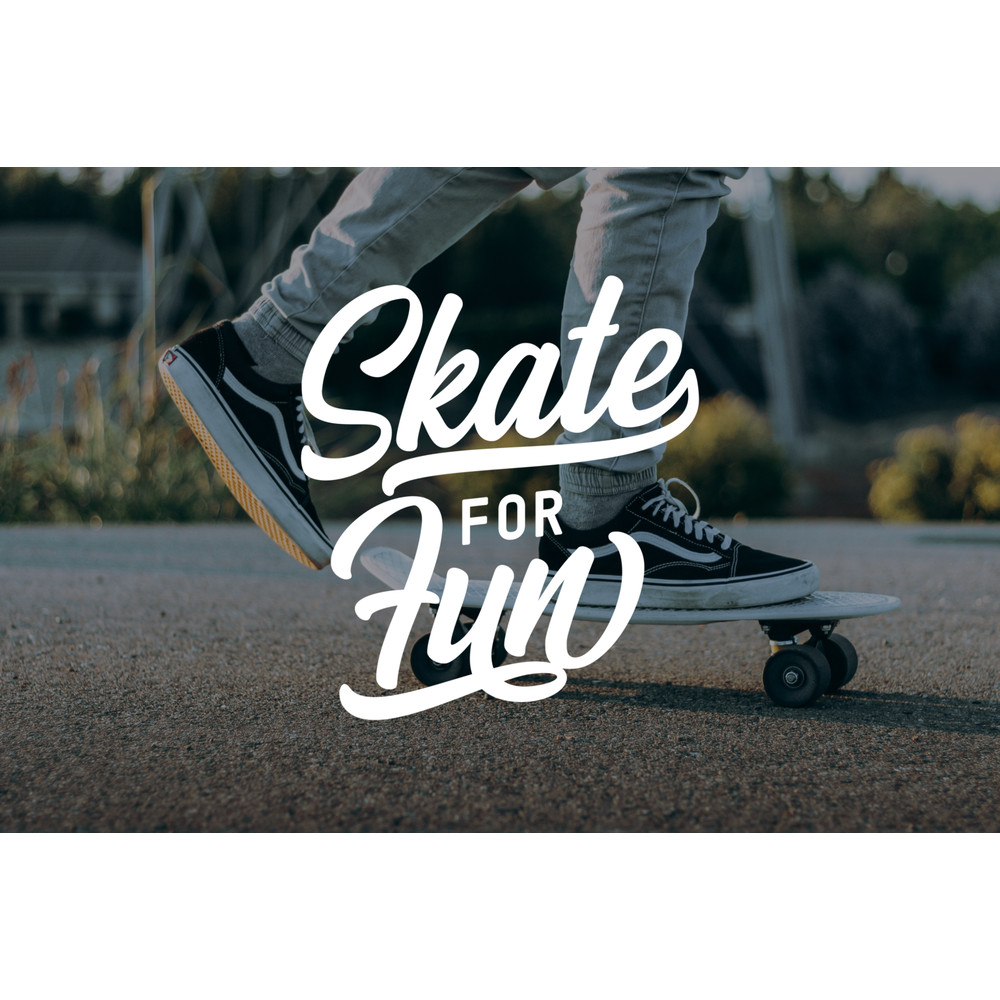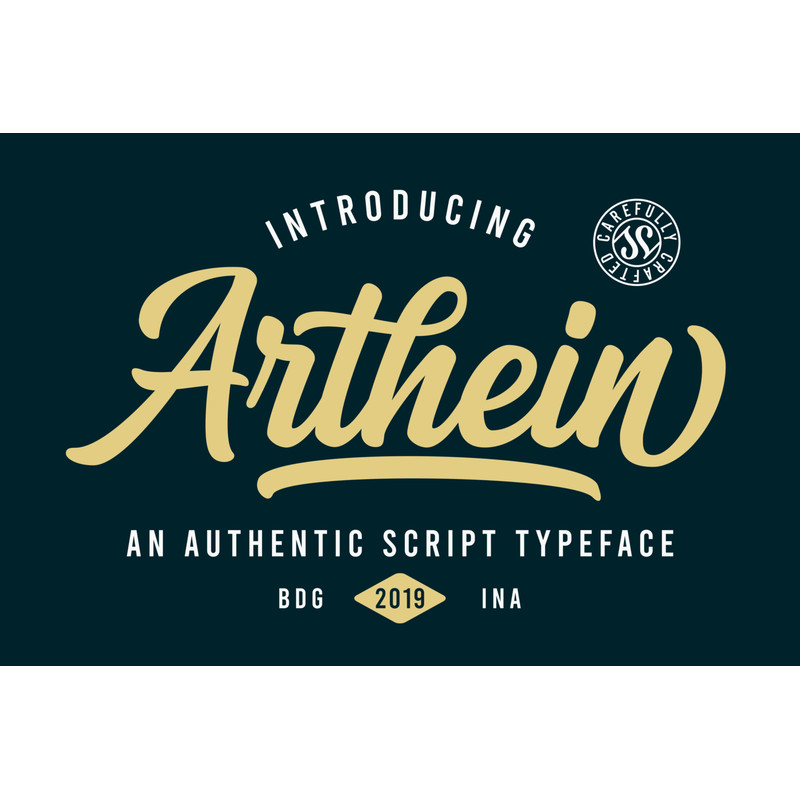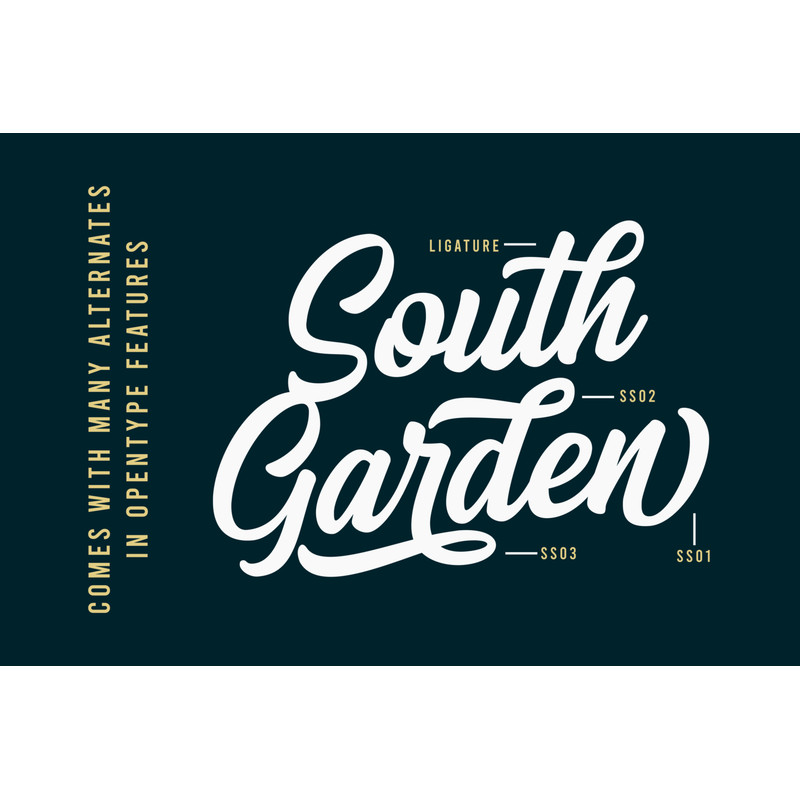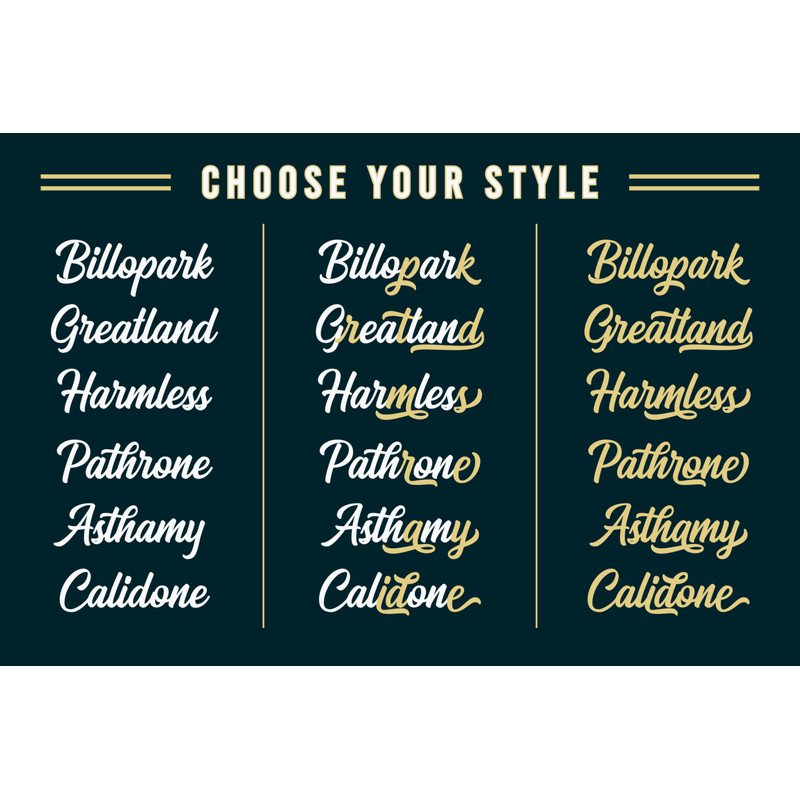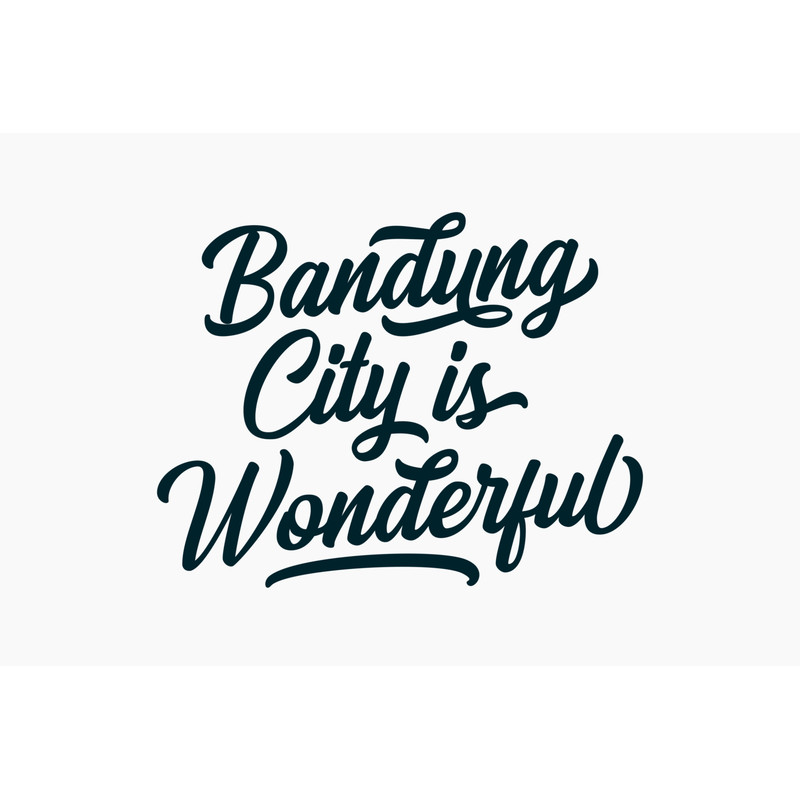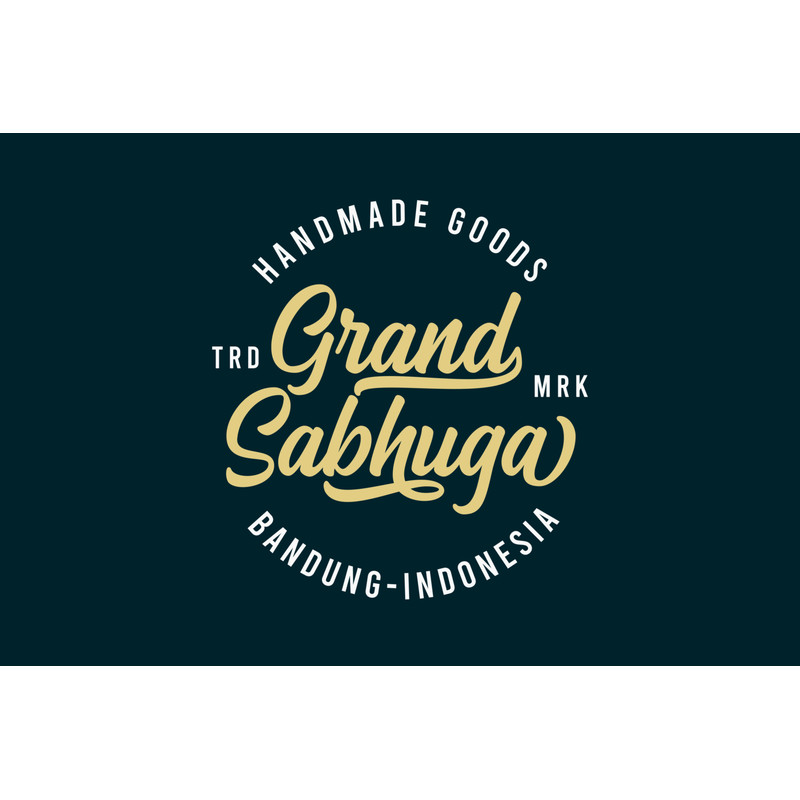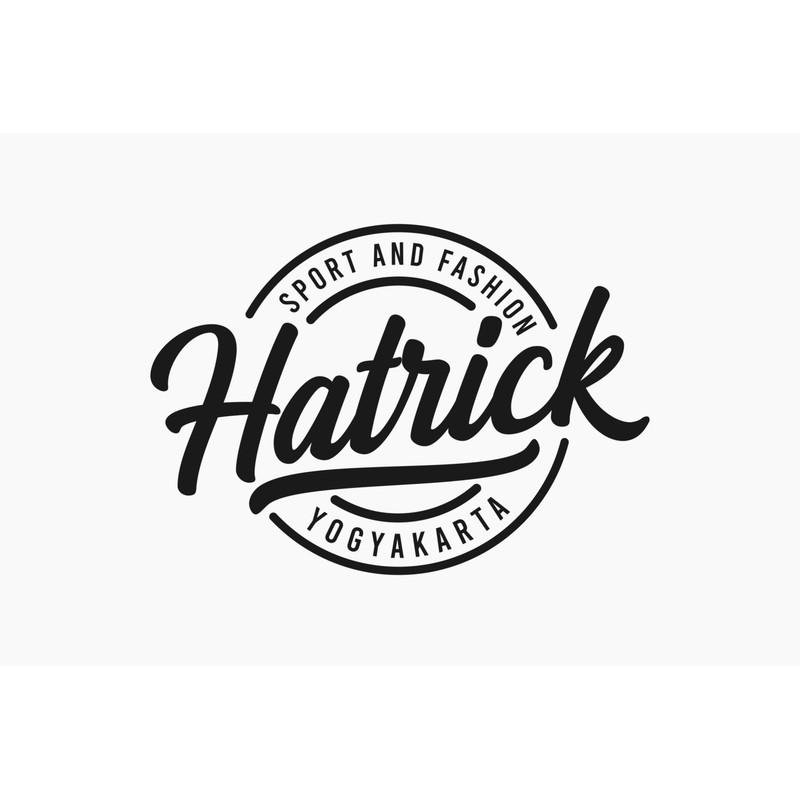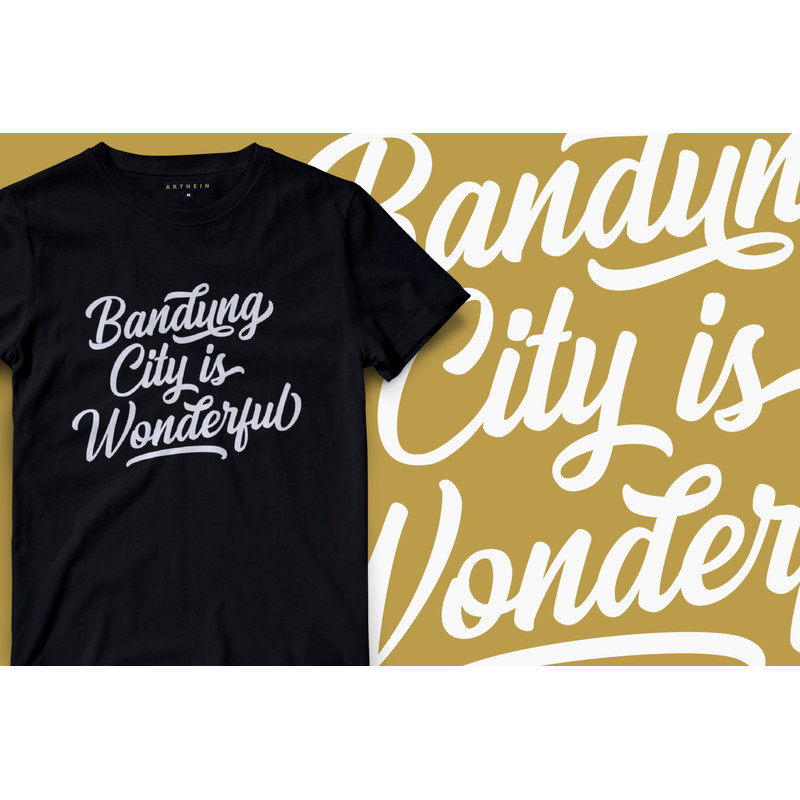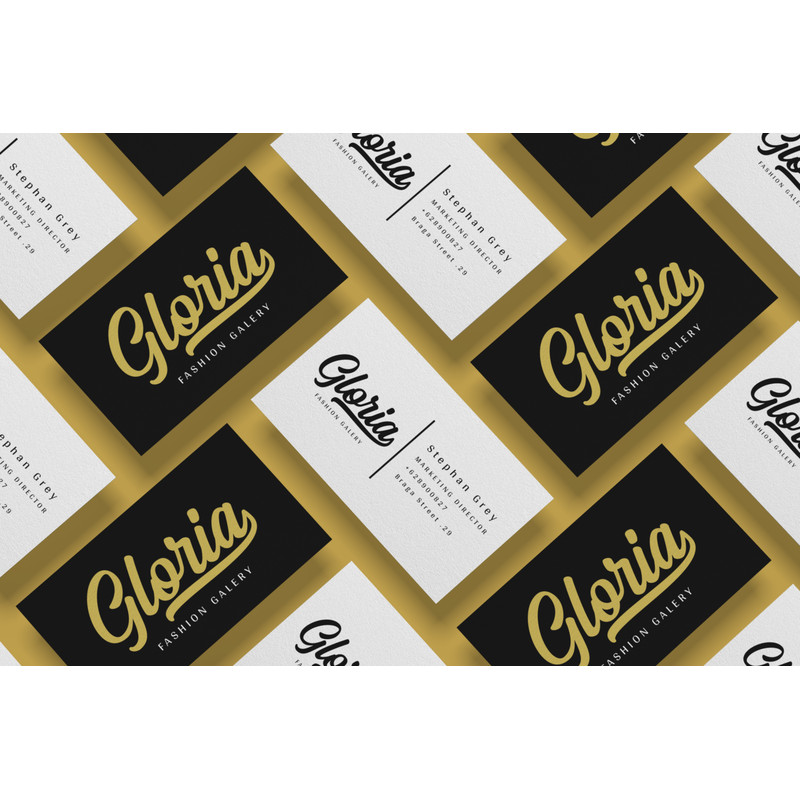
Arthein is a bold script typeface with the authentic hand-lettering touch. It included opentype features with PUA encoded such as altrnates and ligatures.
Arthein font would be good for branding, logotype, poster, badge, book cover, invitation, tshirt design, packaging and many more.
Arthein Swash
Alternates and Ligatures